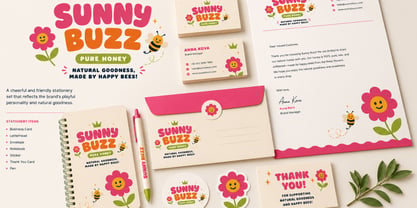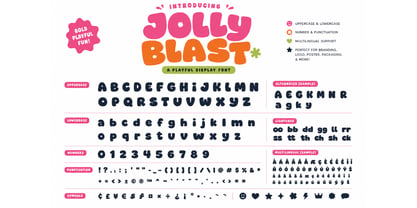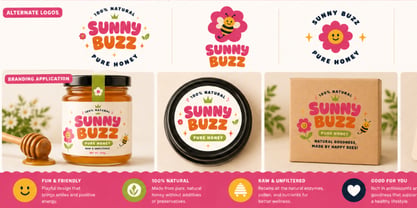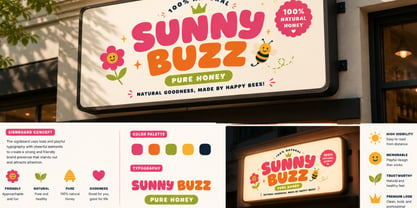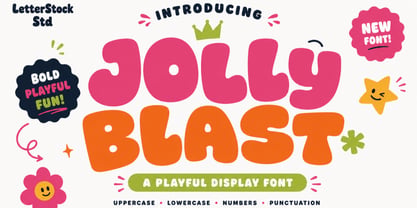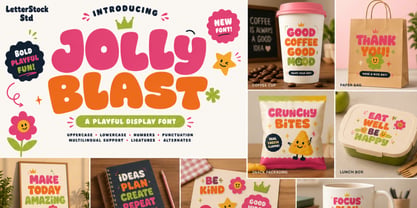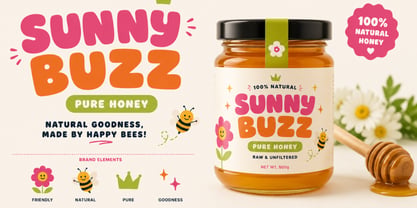
Jolly Blast
Jolly Blast – Playful Display Font
Introducing Jolly Blast, a bold and cheerful display font designed to bring joy, energy, and personality to your creative projects. With its chunky letterforms, smooth curves, and playful character, Jolly Blast instantly creates a fun and friendly visual impact.
Whether you're creating branding materials, product packaging, social media graphics, children's projects, posters, invitations, or eye-catching headlines, Jolly Blast helps your designs stand out with a bright and happy vibe.
The font comes in 2 unique styles, giving you more flexibility to mix, match, and create playful typography compositions.
Why You'll Love Jolly Blast
• Bold and playful display font
• Fun, friendly, and cheerful character
• Perfect for kids-themed and family-oriented designs
• Easy to read while maintaining a unique personality
• Ideal for headlines, logos, and attention-grabbing typography
• Includes alternates and ligatures for a more natural look
• Multilingual support
Perfect For
• Branding & Visual Identity
• Logo Design
• Product Packaging
• Children's Book Covers
• Educational Materials
• School Projects
• Toy Branding
• Party Invitations
• Greeting Cards
• Posters & Flyers
• Social Media Graphics
• YouTube Thumbnails
• Website Headers
• Advertising Campaigns
• Craft and DIY Projects
• Printable Designs
Font Features
• 2 Font Styles
• Uppercase & Lowercase Letters
• Numbers & Punctuation
• Ligatures
• Alternates
• Multilingual Support
Jolly Blast is the perfect choice when your project needs a playful, energetic, and memorable display font that captures attention and spreads happiness.
Create something fun, bold, and unforgettable with Jolly Blast!